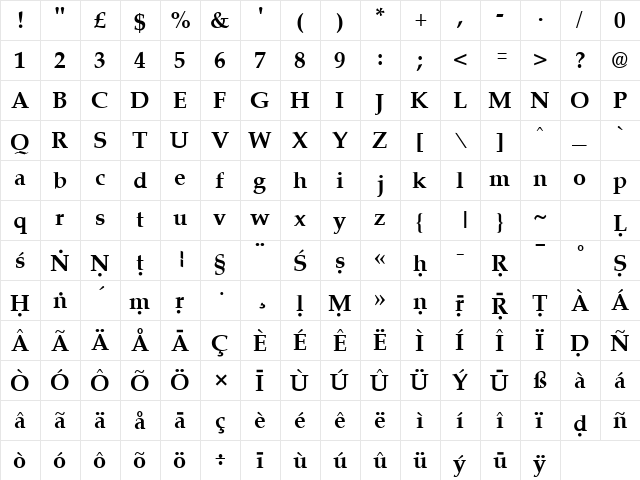
Skt Palermo Bold
| Designer | Diacritical marks added by Bhikkhu Pesala. |
Design Context for Skt Palermo Typeface
Skt Palermo offers clean, dependable letterforms without strong stylistic allegiance, making it a practical choice for designers who need flexibility. The heavy weight commands attention and anchors typographic hierarchies.